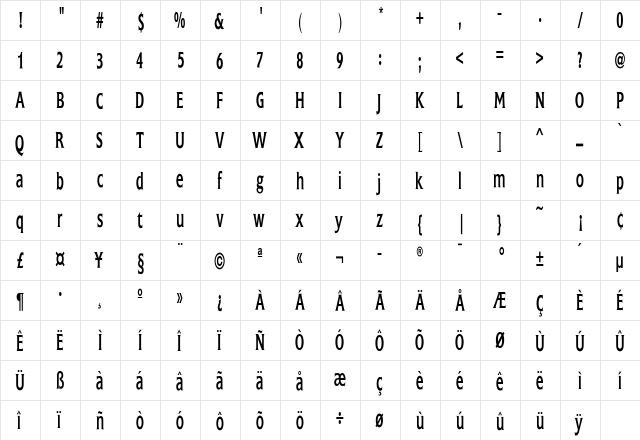
TRGFlange Regular
Design Context for TRGFlange Typeface
TRGFlange is a composed and adaptable typeface that performs quietly and consistently across a wide range of design contexts.
Pro Tip: Use TRGFlange in both headline and body roles to test its range before committing to a single application.